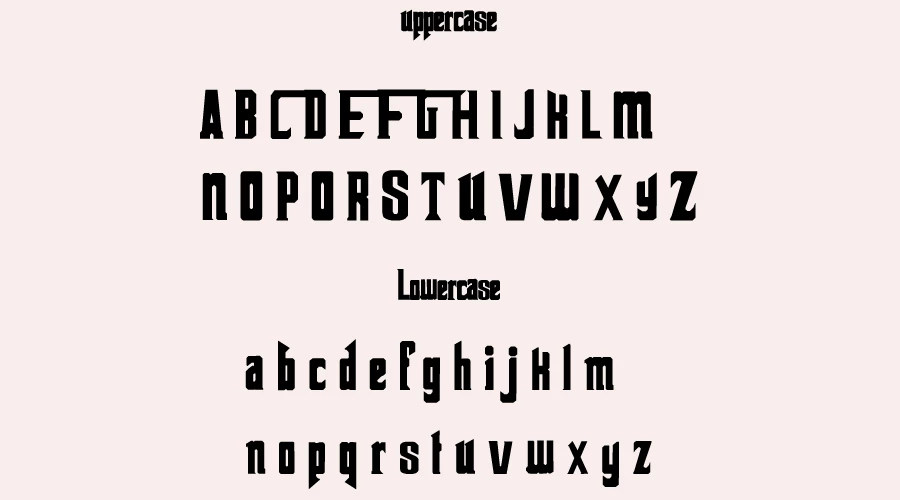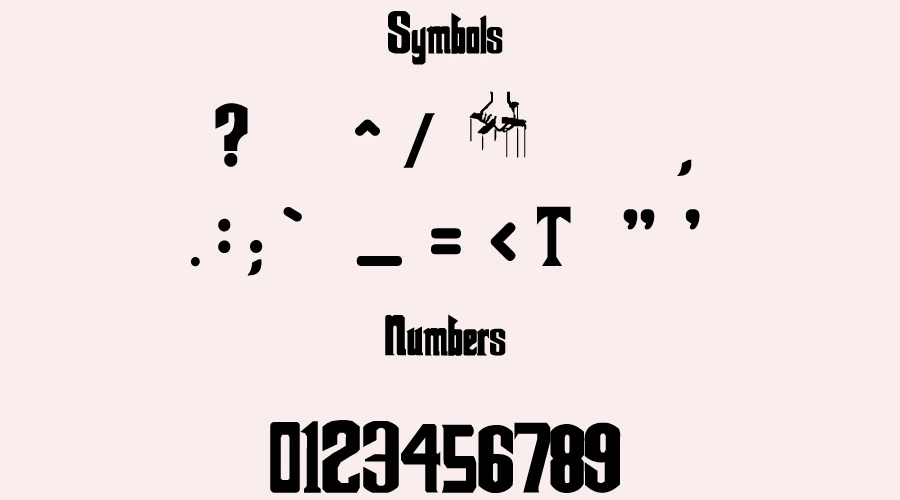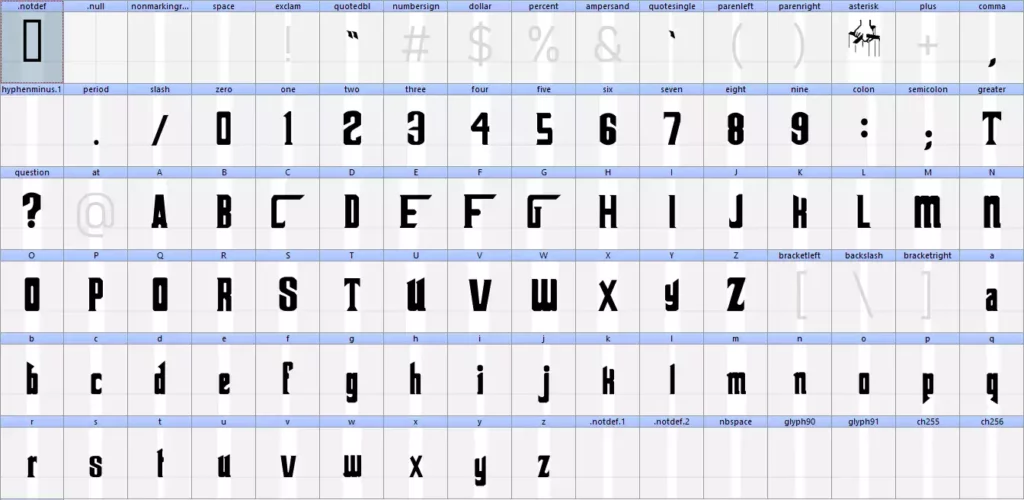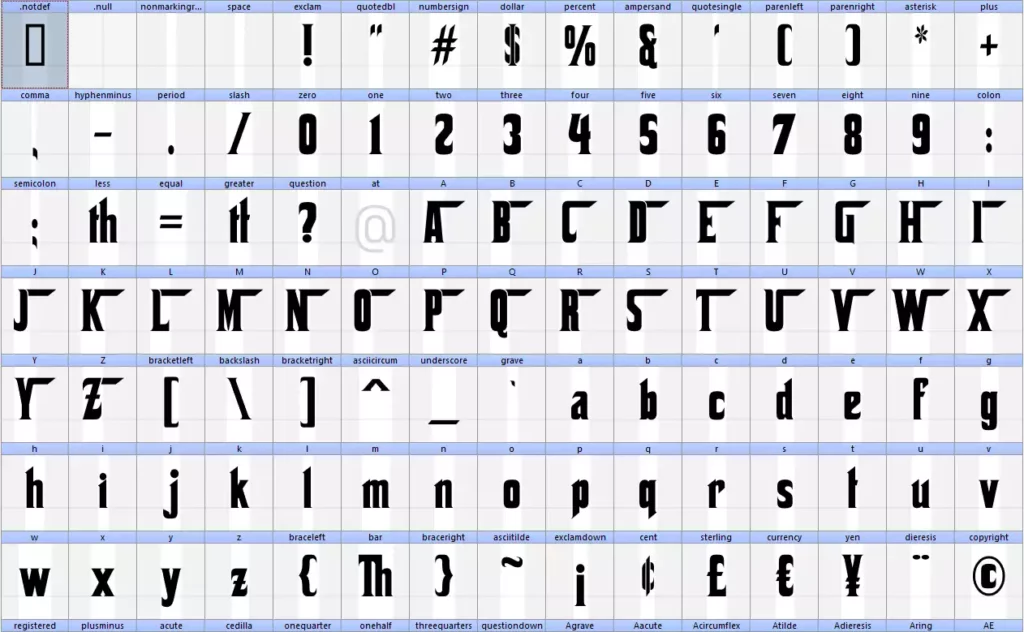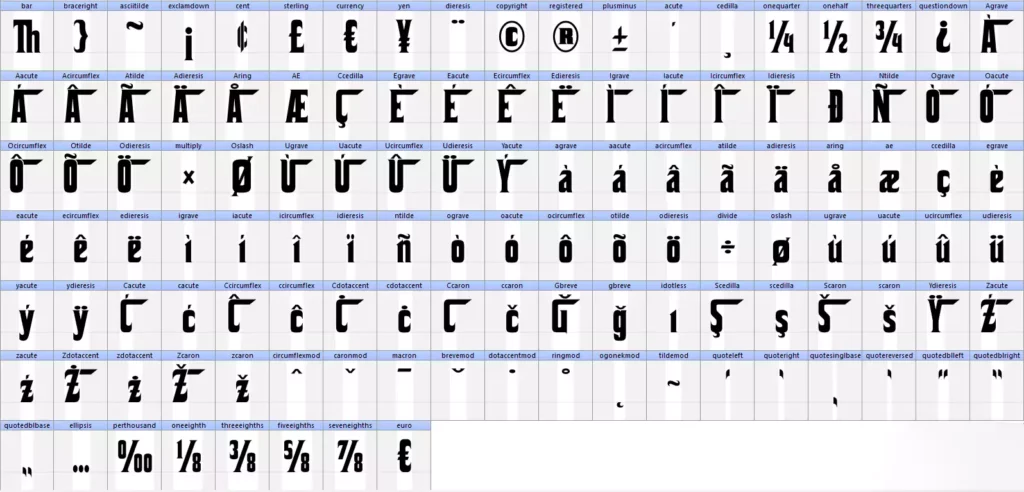
What is the name of the font used in the Godfather?
The name of the font used in the title of the film “The Godfather” is a custom-designed typeface, not a commonly available font. However, due to the film’s popularity, fans created similar fonts, such as
1. The Godfather v2
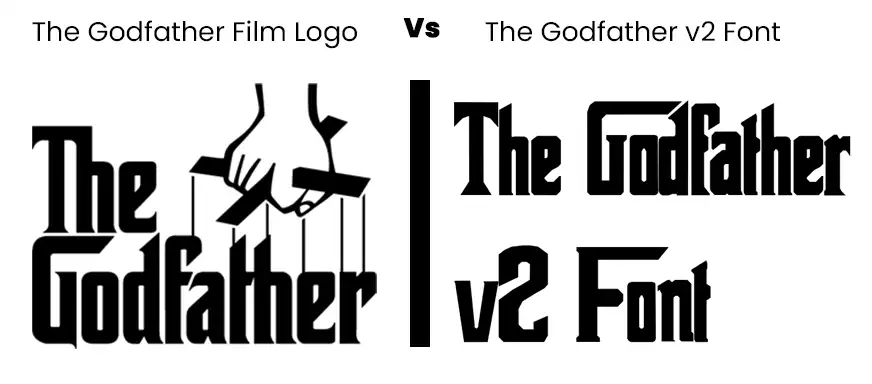
The Godfather v2 font mimics the style of the title lettering from The Godfather film series. It was designed by Jeff Bell and copyrighted by BoltonBros.Com in 2003. The Version 1.0 of this font was released in June 2001, with 89 characters in regular weight. However, The Godfather v2 had 97 increased characters and no fixed pitch. It is expected that version 3.0 will be out very soon. It will fix the last few punctuation mistakes in the current version.
2. Corleone font
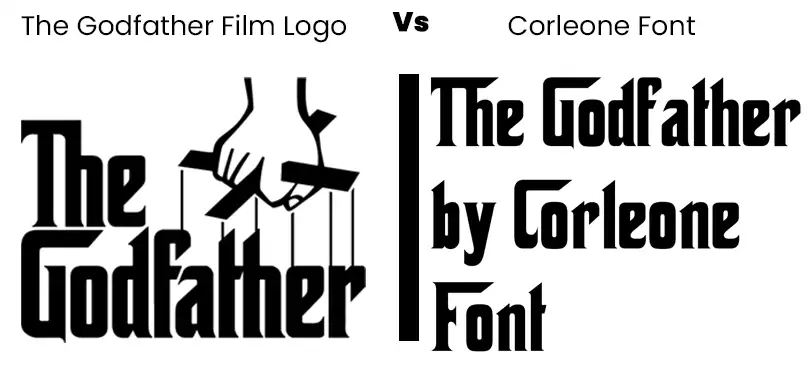
Although the first movie’s logo had too tight spacing and wasn’t legible as a font, the third movie’s logo was better spaced and worked even at smaller type sizes. However, the font used for the film title in the poster is very similar to the Corleone font, designed by FontMesa. The font has 211 glyphs and 217 characters. In addition, it supports international characters and kerning. It offers the euro symbol as well.
On August 18, 2013, it had an update. Additionally, the Corleone font has two variants. Unlike the first Corleone font, Corleone Due has normal upper case letters, while the first font has an extended top line.
Note: In our opinion, the “Corleone font” is more similar to or close to the Logo font from the Godfather film.
About The Godfather film logo
The Godfather film series logo is similar across all three movies, and it is a custom-designed typeface that was created specifically for the film series. The logo features bold and stylized lettering of the film’s title “The Godfather” with the “The” in white and “Godfather” in red, set against a black background. The design of the logo is intended to convey a sense of power and prestige, which is fitting for the film’s themes of family, crime, and power. The design is a classic and timeless one, it is still widely recognized today and still used for the merchandise and spin offs.
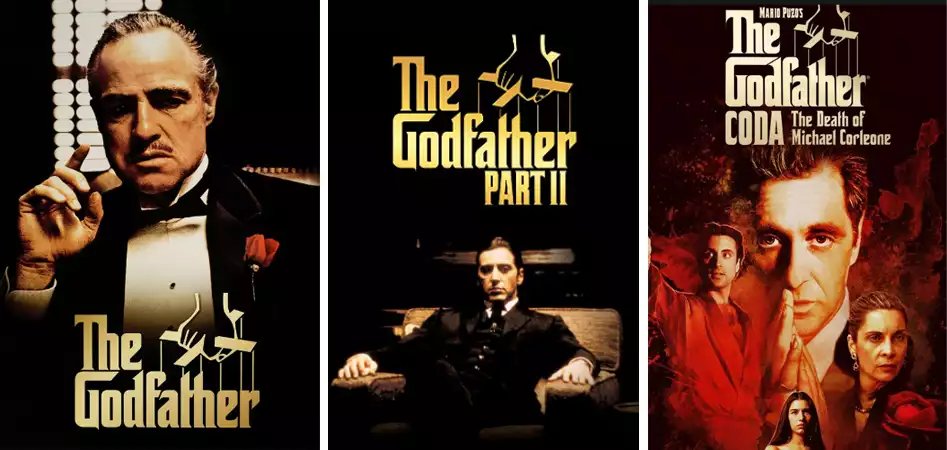
What font is closest to the Godfather?
Ans: Visual wise The Corleone font is closest to the Godfather film logo font.
What kind of font is this?
Ans: The Godfather font comes from the movie’s title logo, “The Godfather.” It is a logo font.
How do you add the puppet master icon above the “father” part, like in the movie?
Ans: There are three ligatures or custom combinations of letters in the font. The famous symbol of the hand holding the puppet strings can be derived by typing out the at key (@).